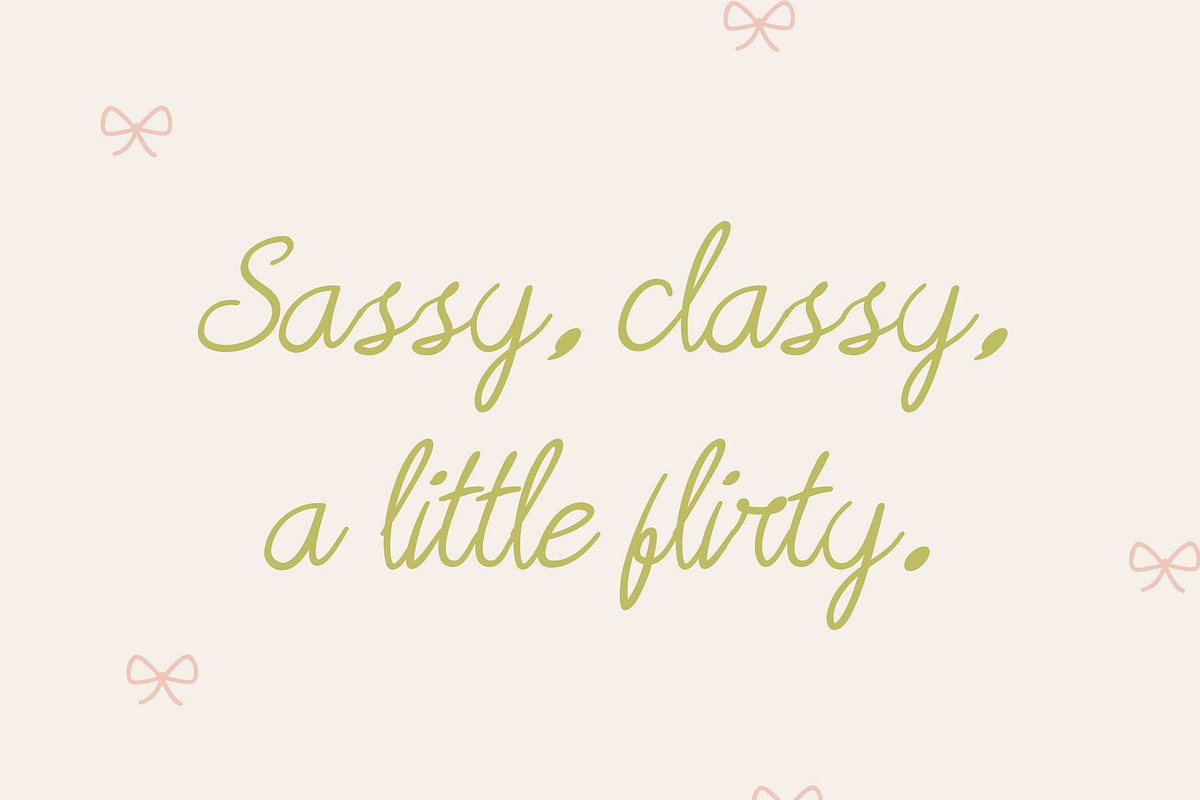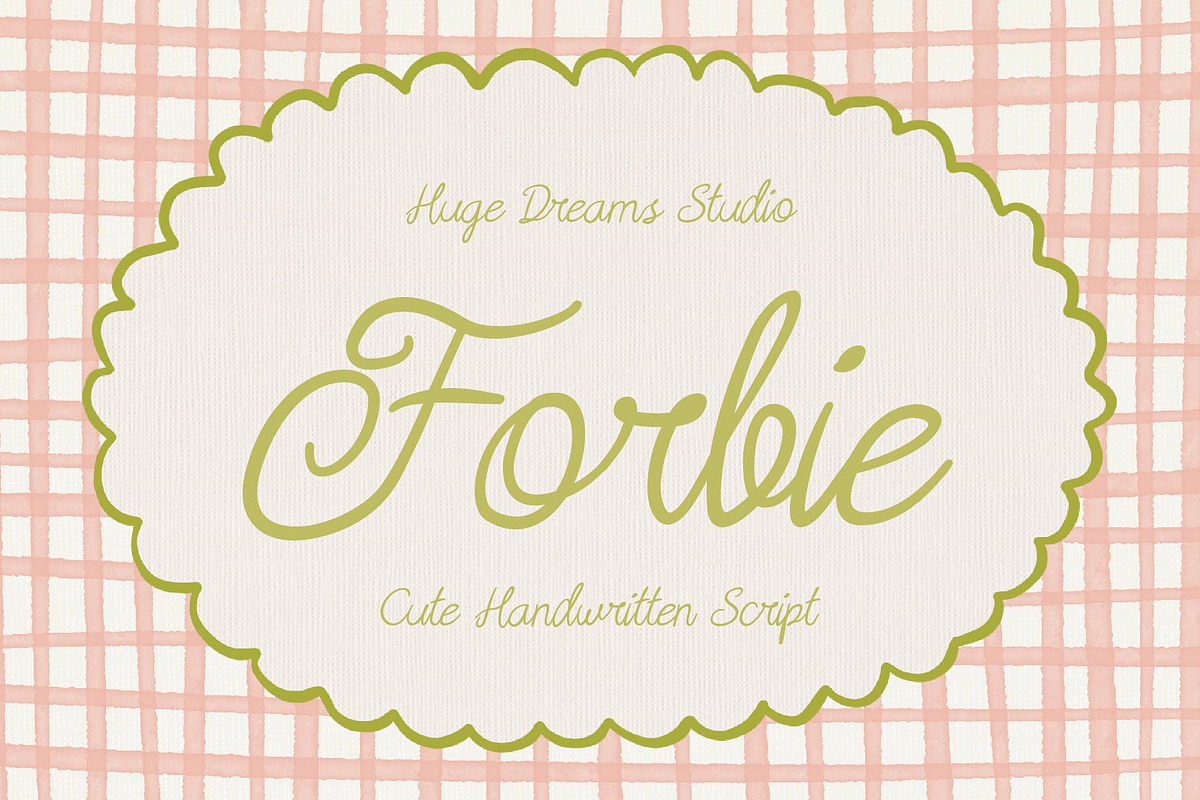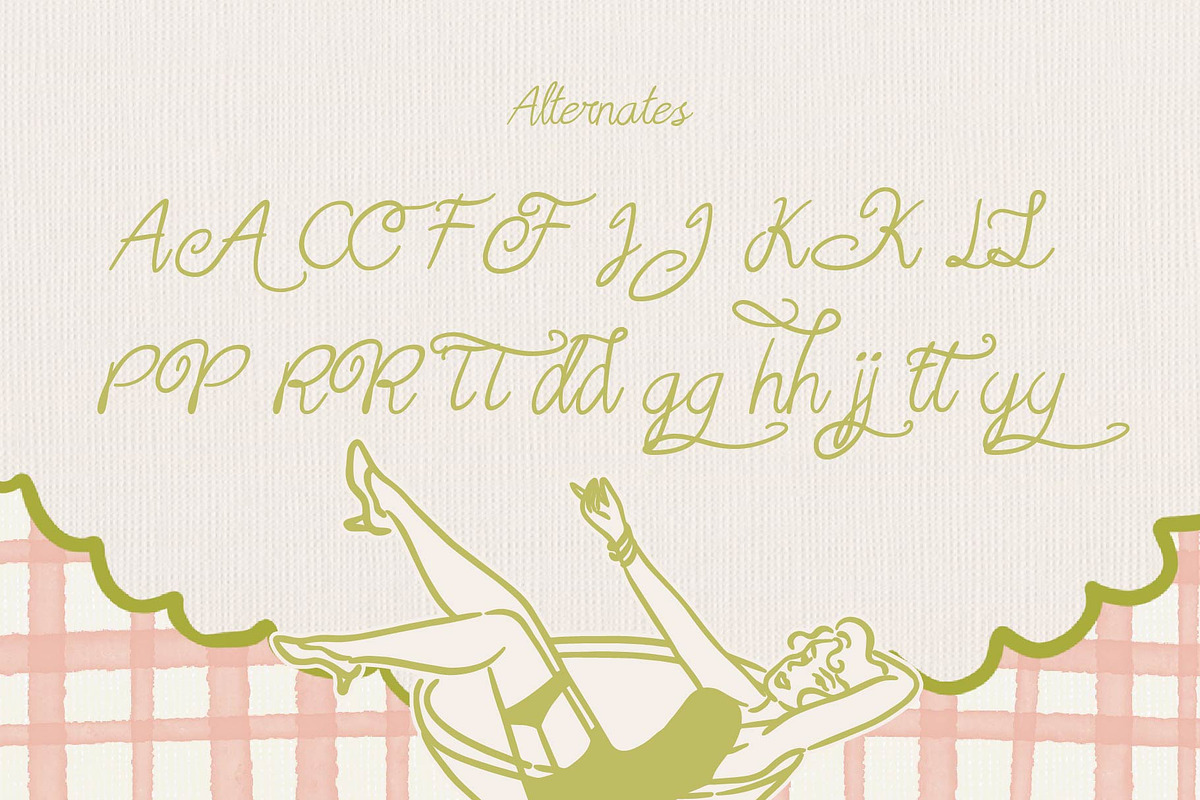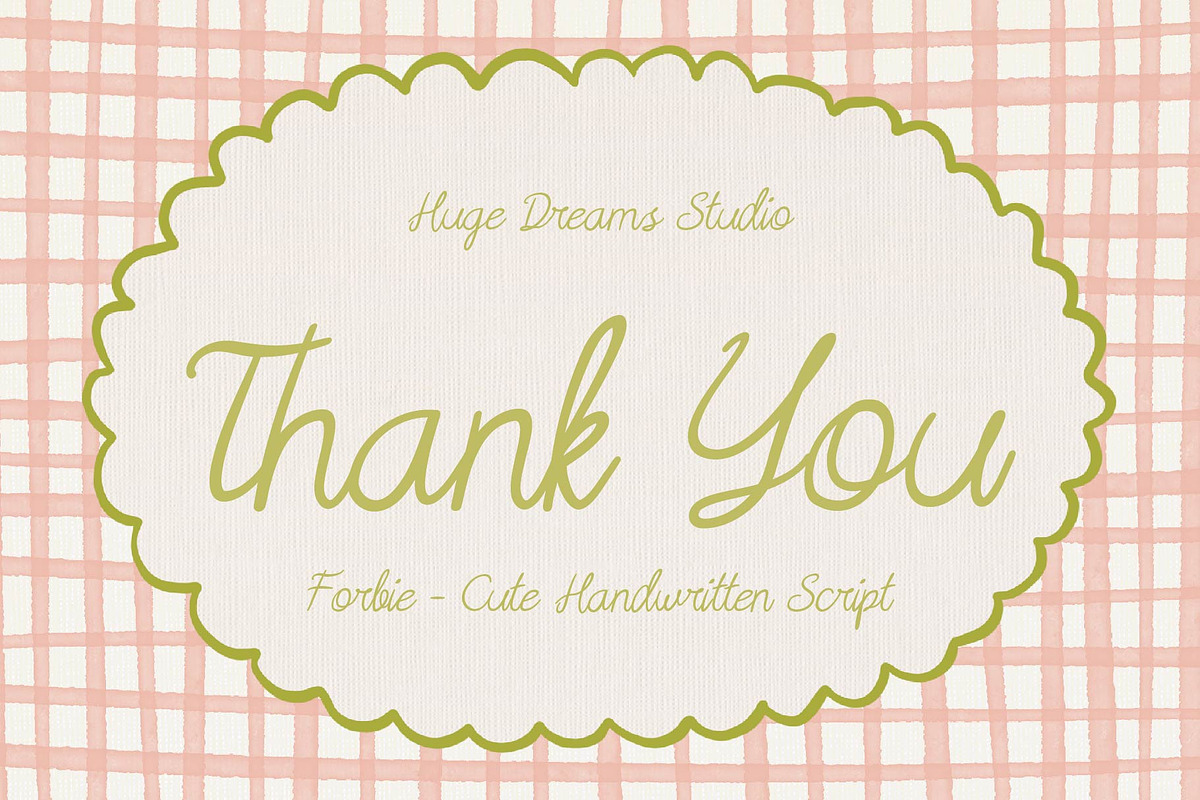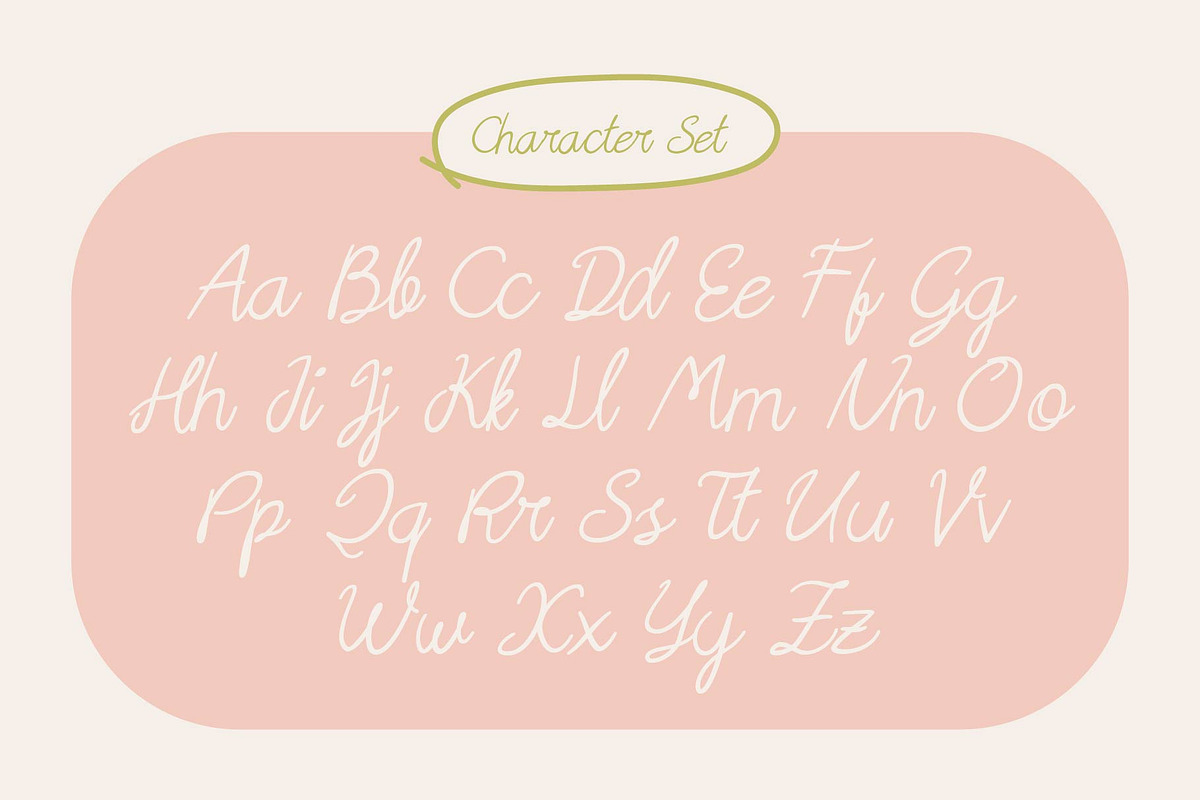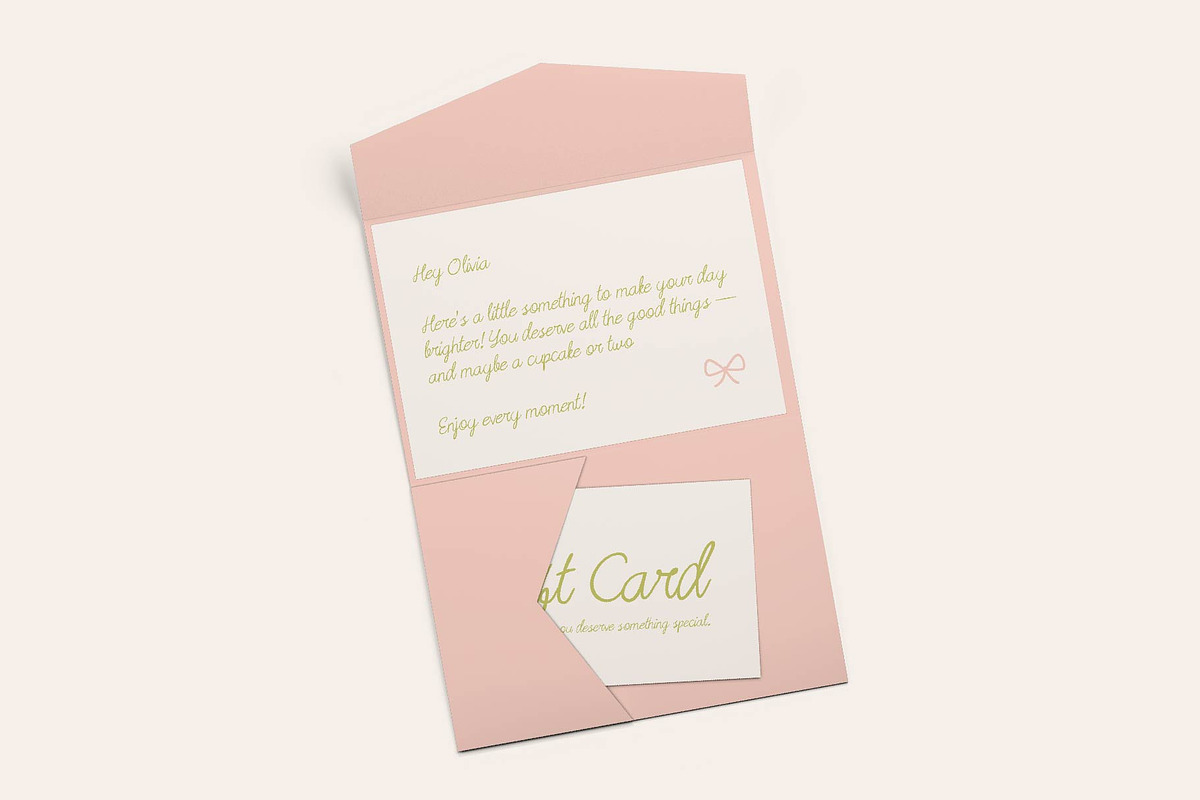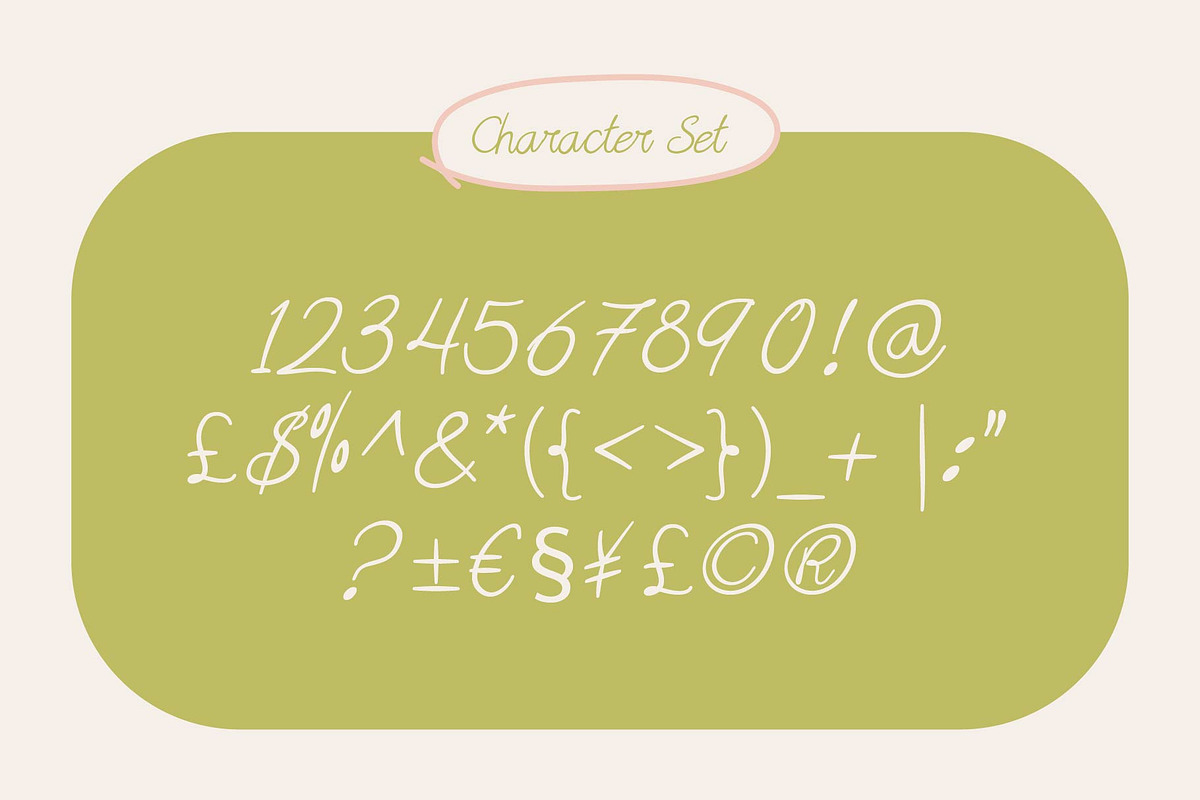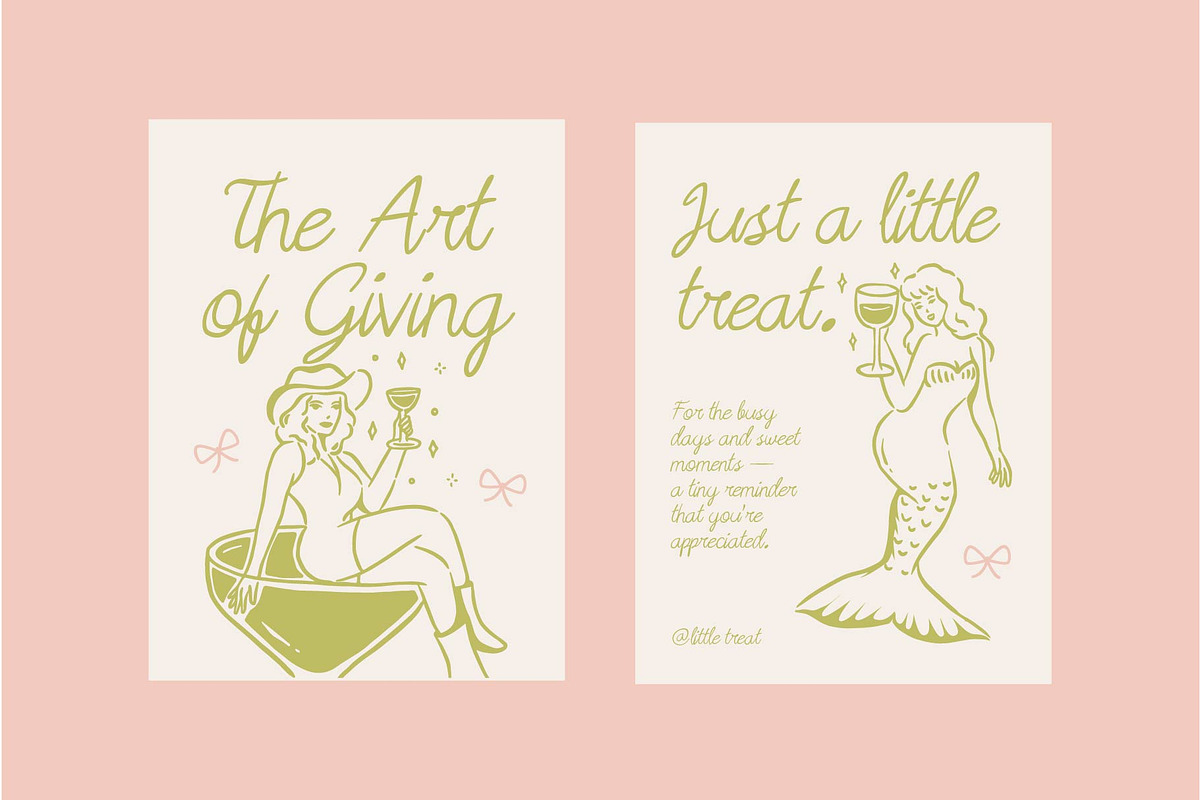
Forbie – Handwriting Script Font
Forbie - Cute Handwriting Script Font
Forbie is an adorable handwriting script font designed to bring warmth and charm to every project. Its soft curves, playful strokes, and natural handwritten feel make it perfect for cute branding, greeting cards, logs, packaging, and social media posts. With its friendly personality and effortless flow, Forbie adds a delightful handmade touch that makes your designs feel more personal and heartwarming.
Forbie-Cute Handwriting Script Font features:
- Punctuation & Numbers